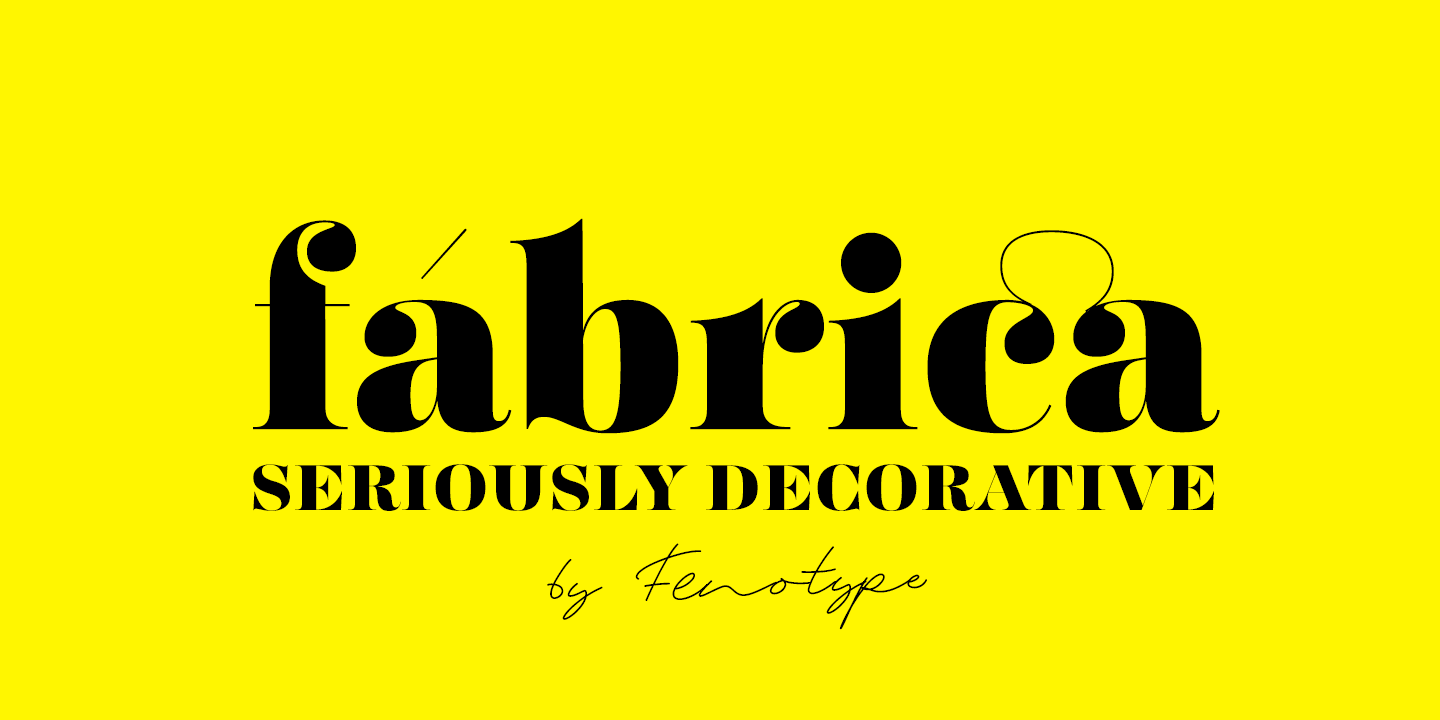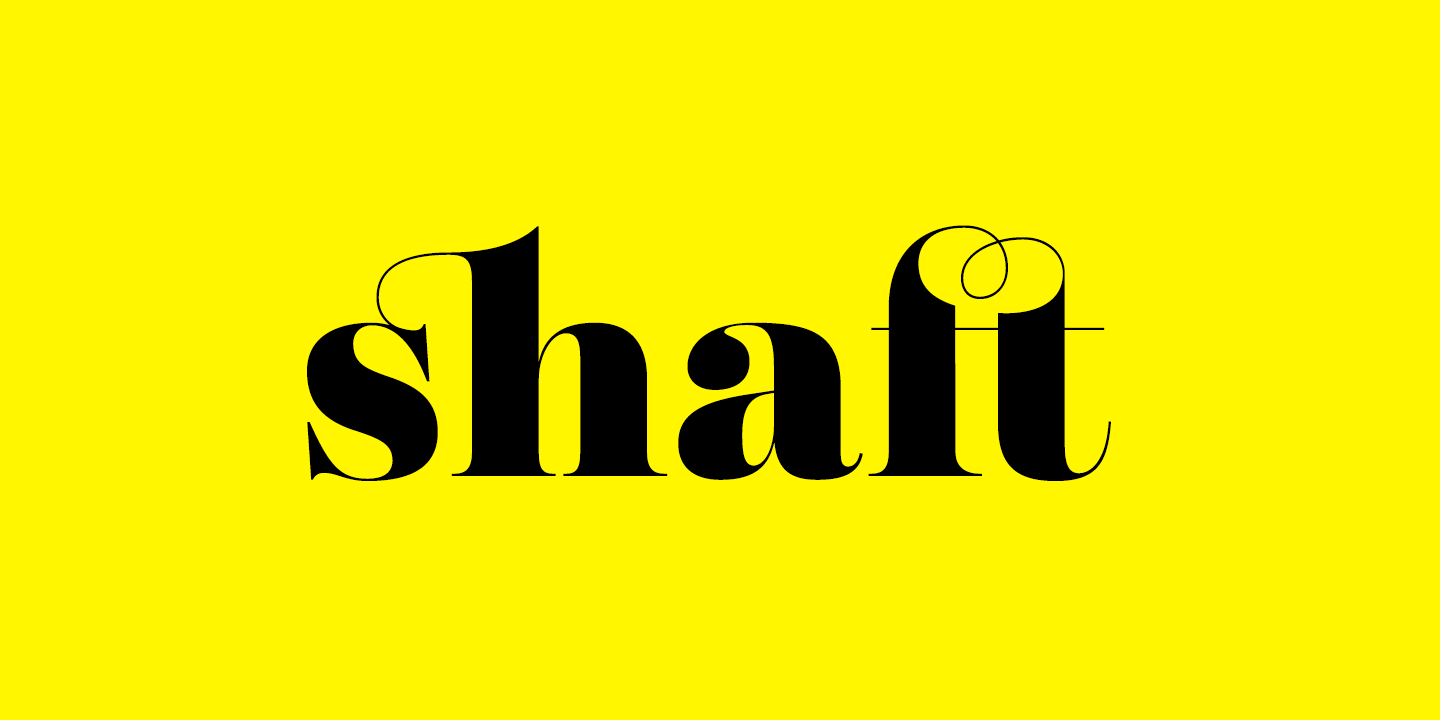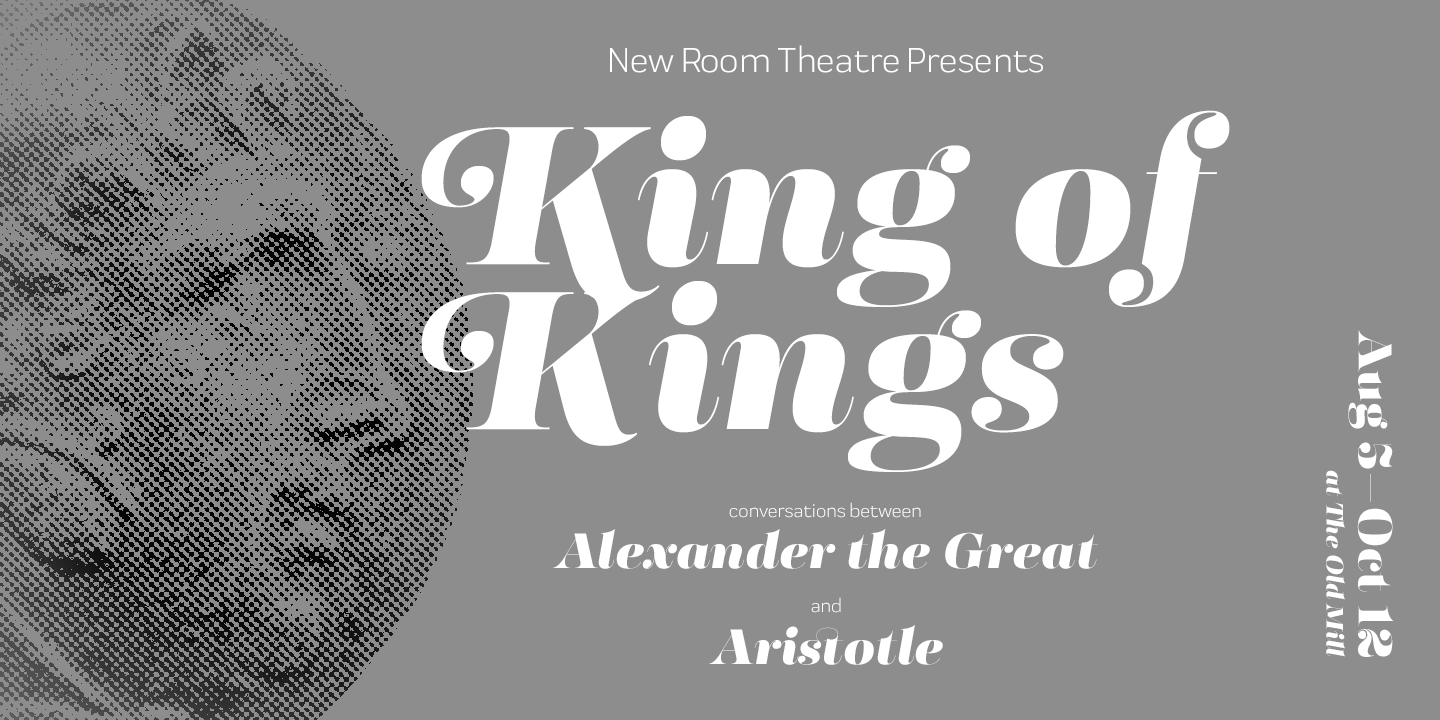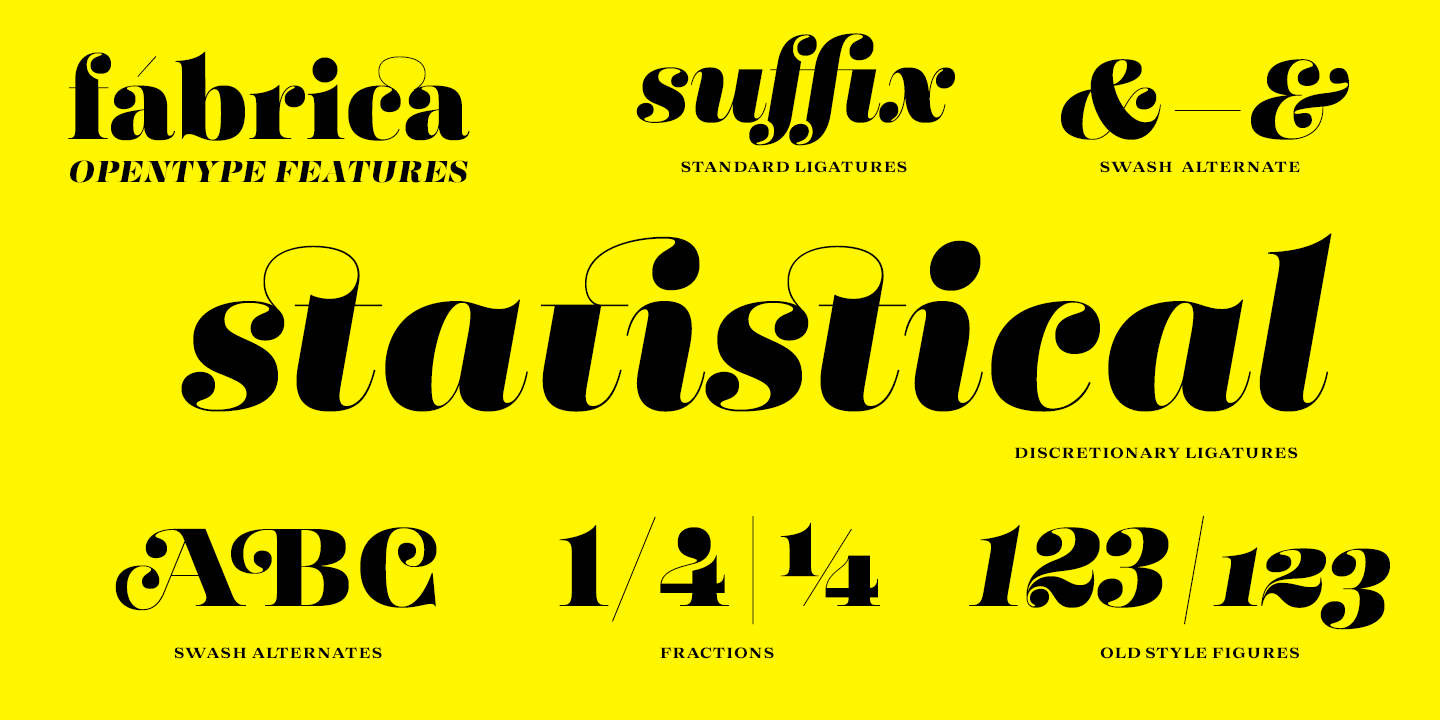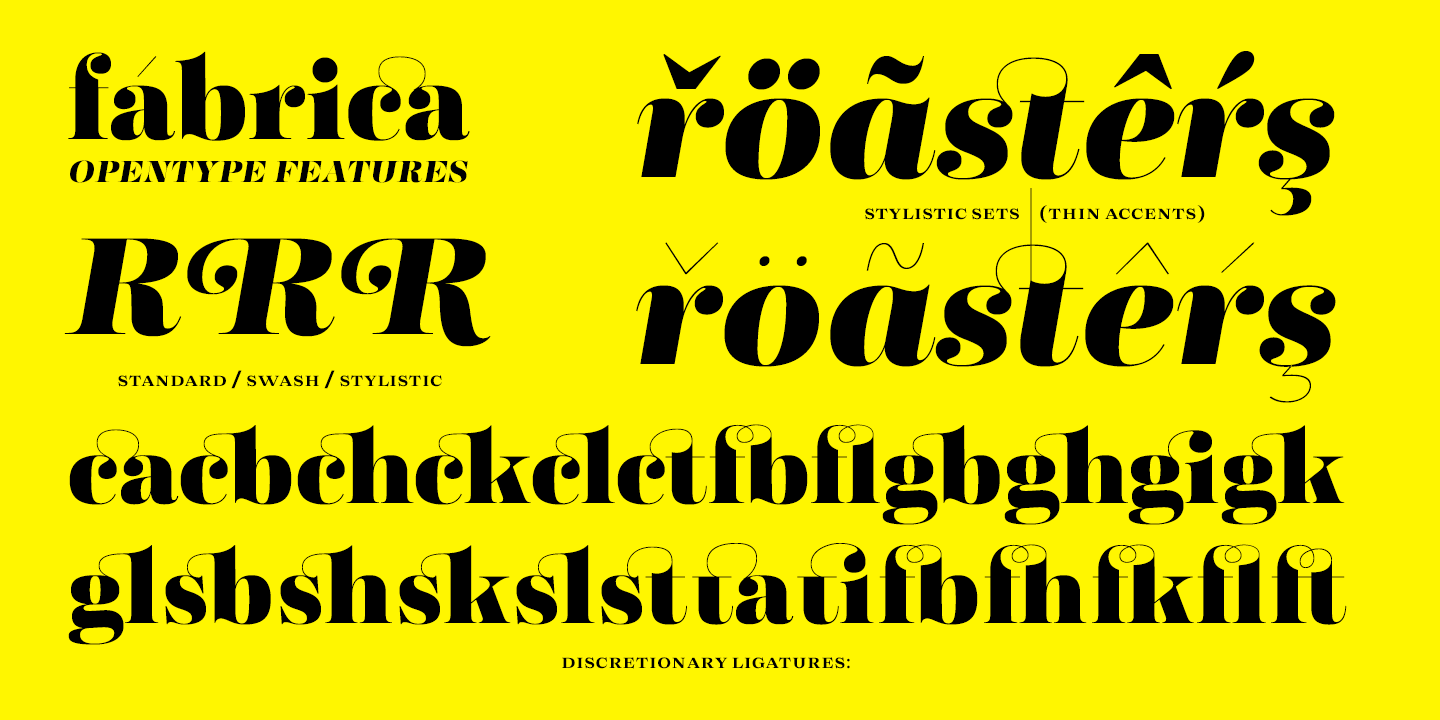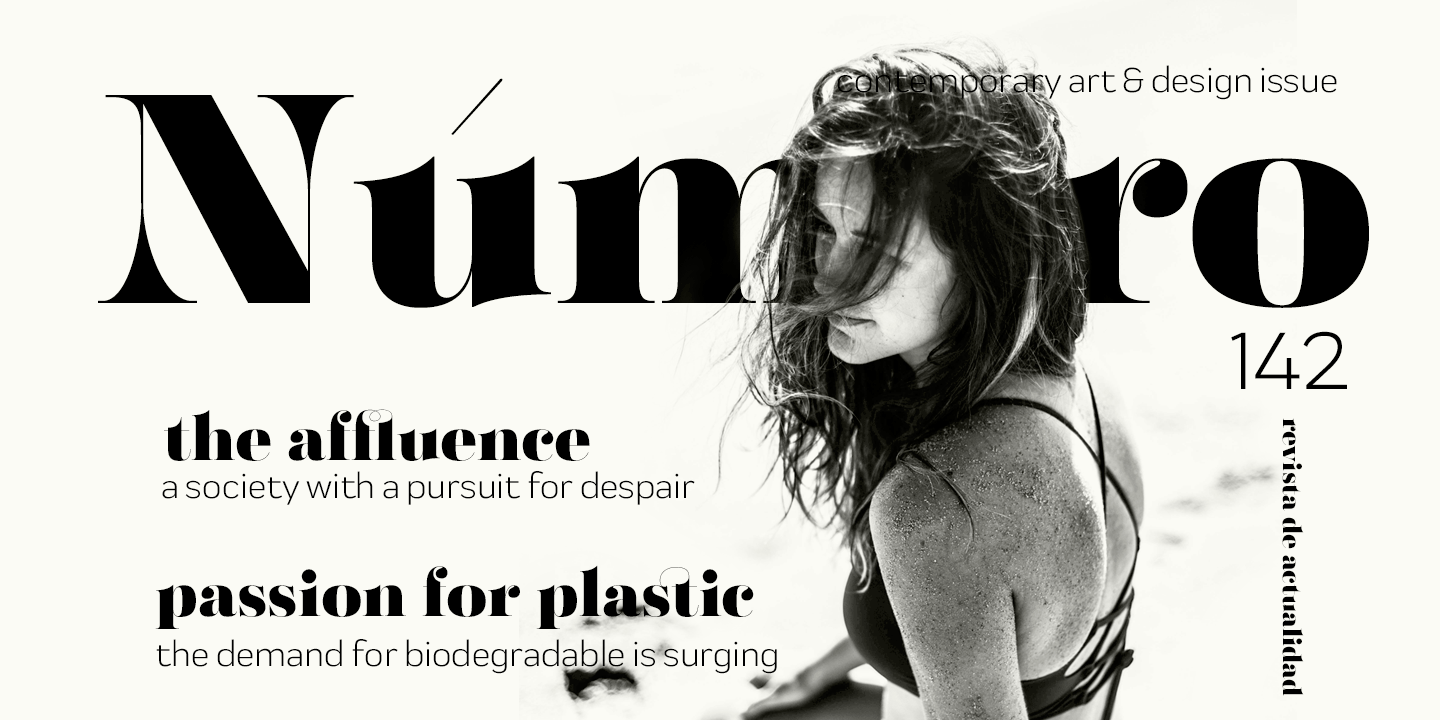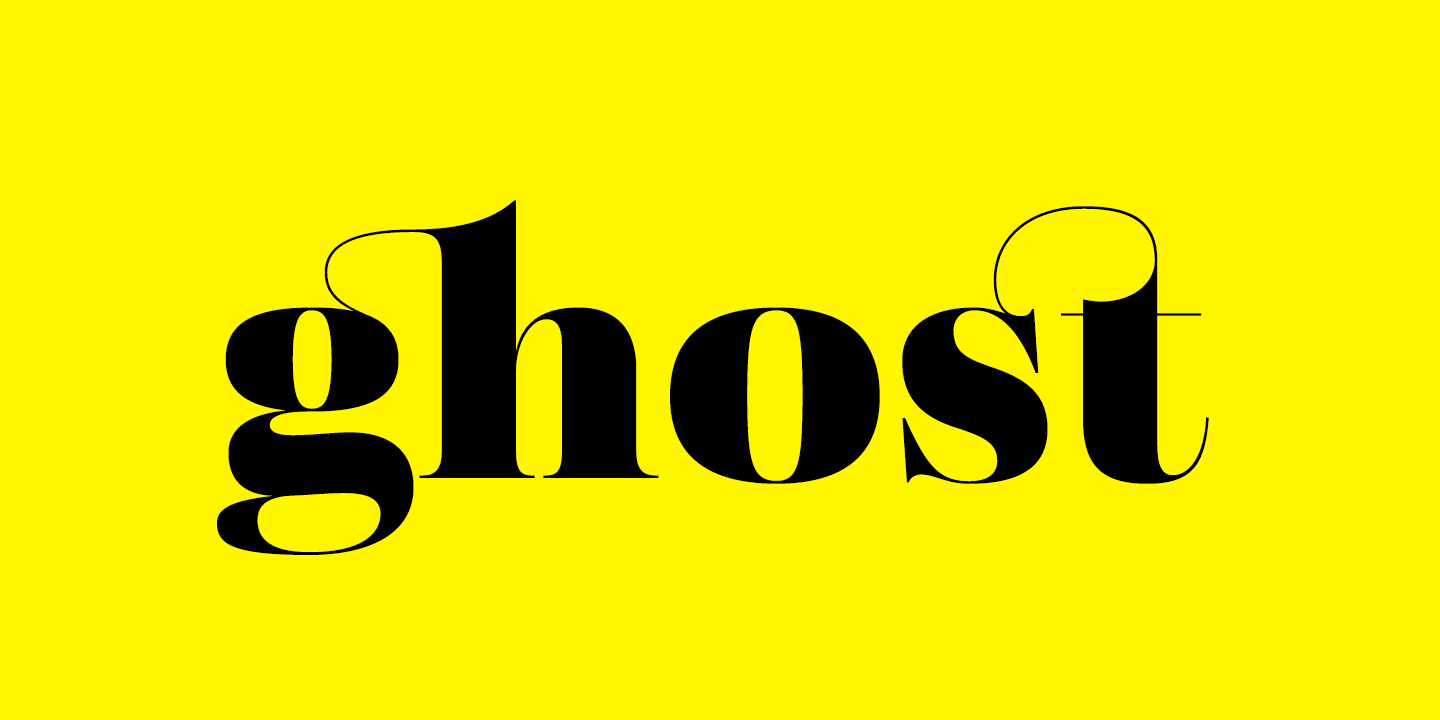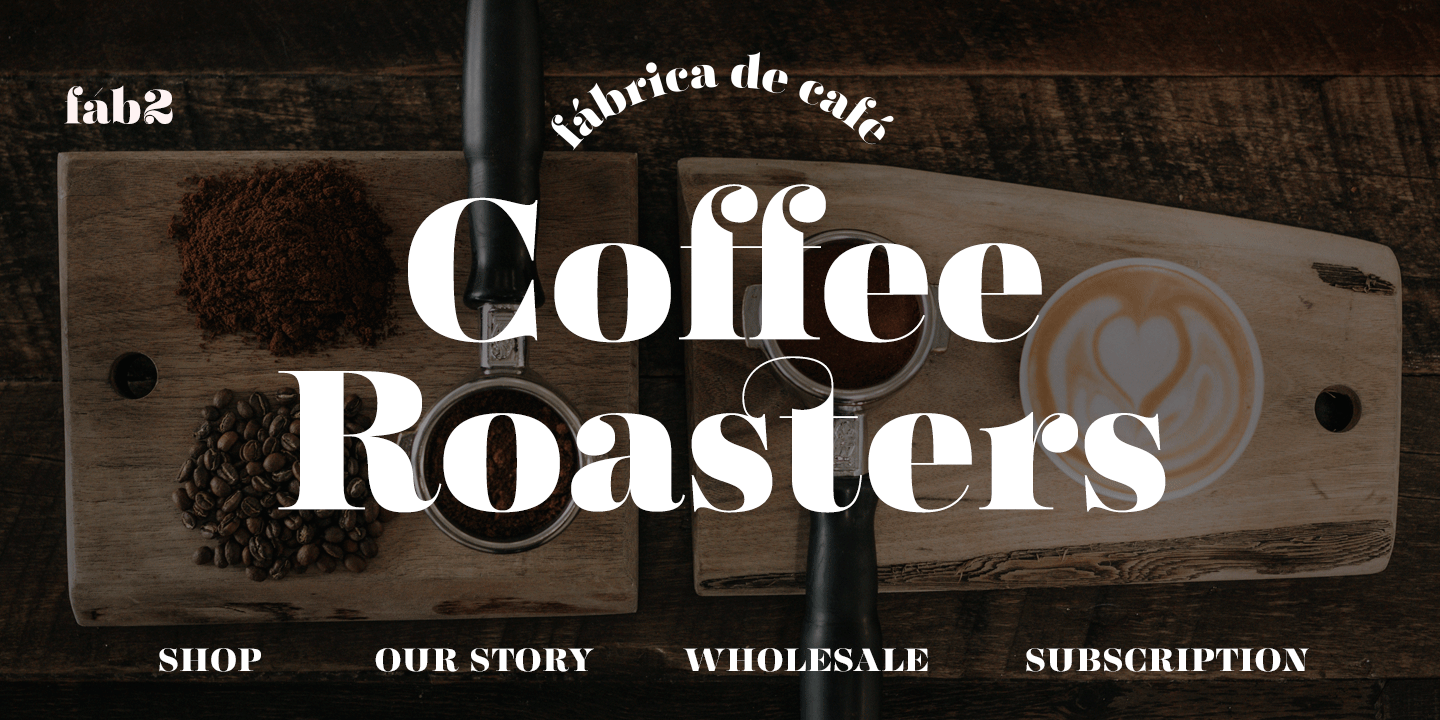
Fábrica
Fábrica is a dramatic modern serif with a bold, high-contrast look and a distinctly sophisticated edge. Sharp terminals, crisp edges, and heavy weight give it a fashion-forward presence, while the italic adds extra movement and flair. The result is a display family that feels elegant, stylish, and confidently contemporary.
With 2 included styles—Fábrica Heavy and Fábrica Heavy Italic—this family is well suited to standout branding, editorial headlines, packaging, posters, and other decorative display work where strong typography does the heavy lifting. It brings a polished, high-impact voice to layouts that need both refinement and visual drama.
Created by Fenotype, Fábrica is a smart choice for designers looking for a serif that feels modern rather than traditional. Its thick-and-thin construction and assertive silhouette make it especially effective when used large, where its contrast and sharp detailing can really show.